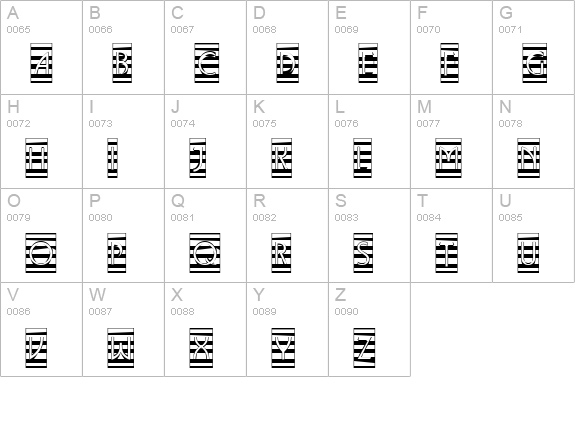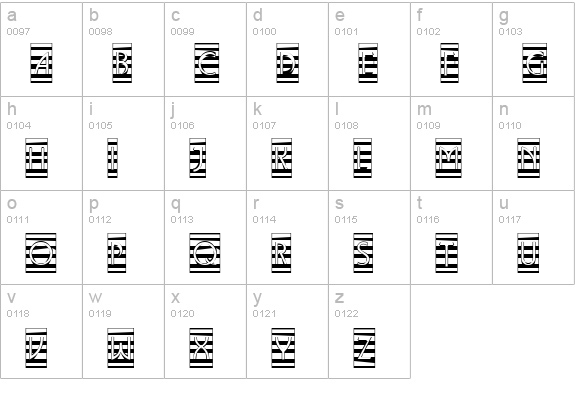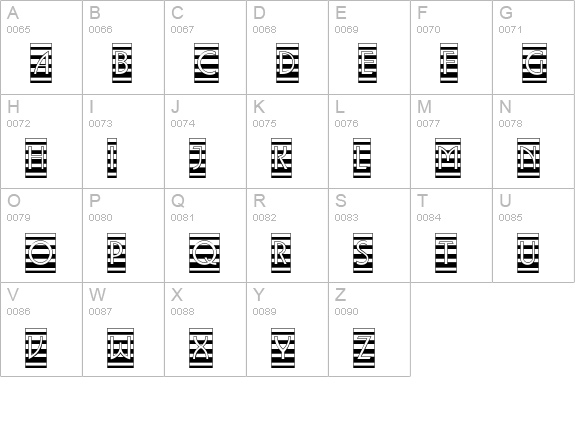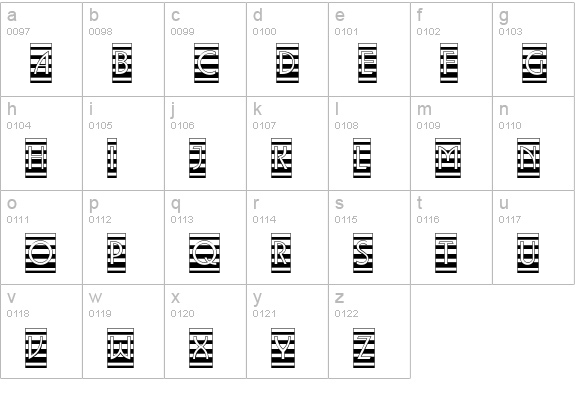
a_LancetCmMr Font Details
Introducing LancetCmMr, a stylish and modern font that exudes sophistication and elegance. With its sleek lines and contemporary design, LancetCmMr is perfect for adding a touch of class to any project. The clean and crisp letterforms make this font versatile and suitable for a wide range of applications, from branding to editorial design. What sets LancetCmMr apart is not only its aesthetic appeal but also its accessibility. This premium font is freely available to download at FontsMarket.com, making it a valuable addition to any designer's toolkit. Whether you're working on a professional project or a personal creative endeavor, LancetCmMr offers a timeless and refined look that will elevate your designs to the next level. Don't miss out on the opportunity to enhance your work with the elegance and sophistication of LancetCmMr. Download this exquisite font today and see the difference it can make in your projects.